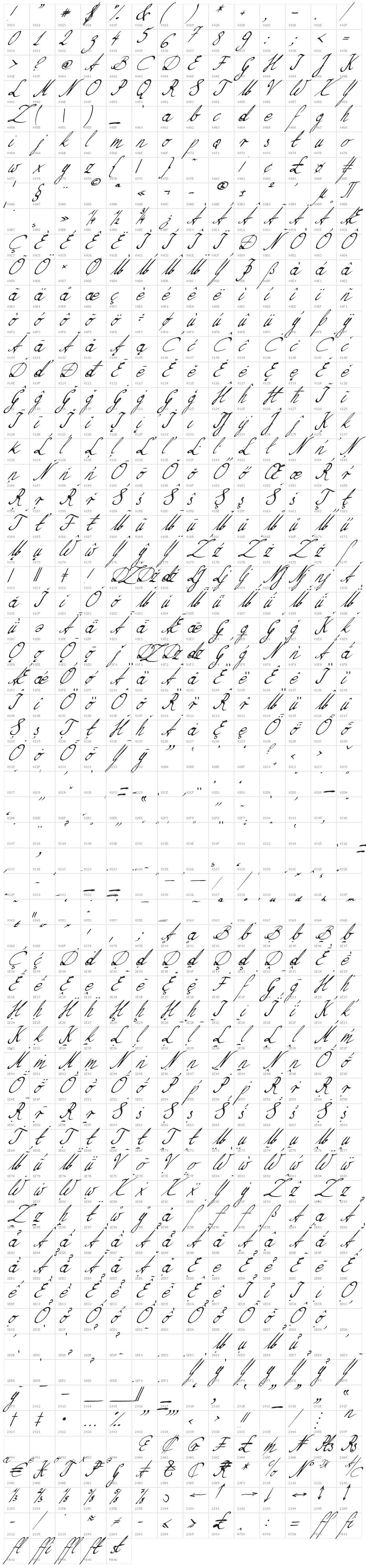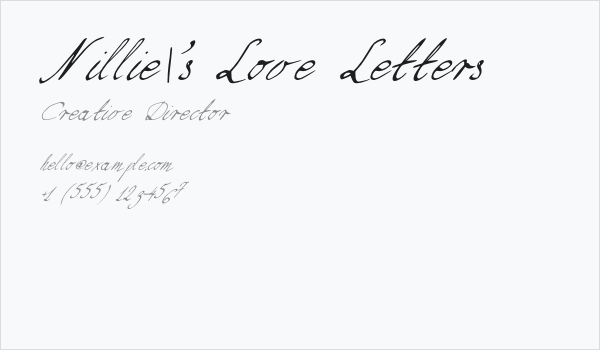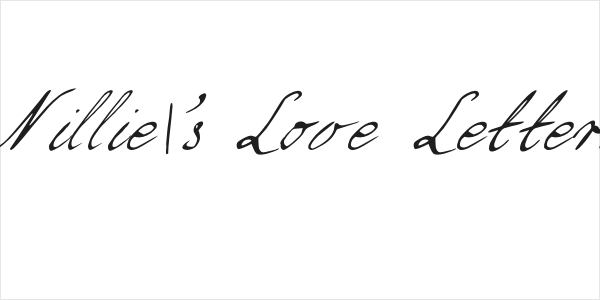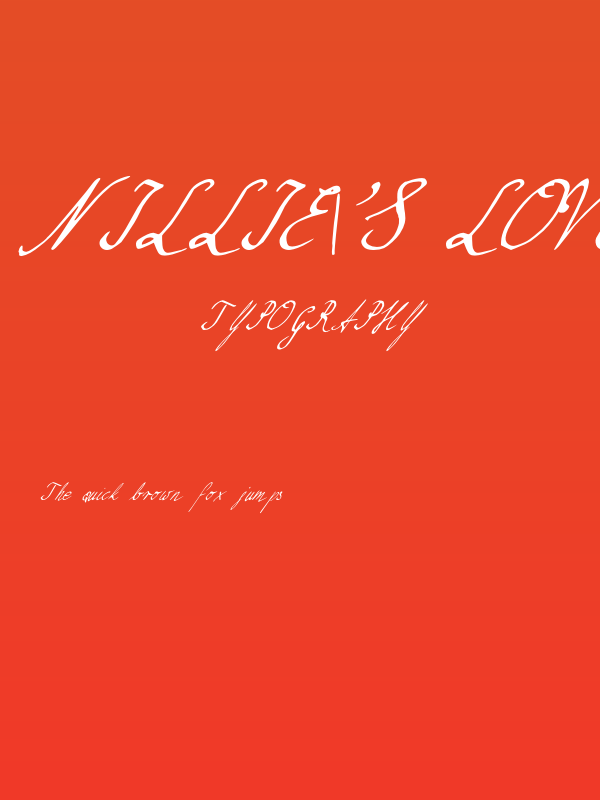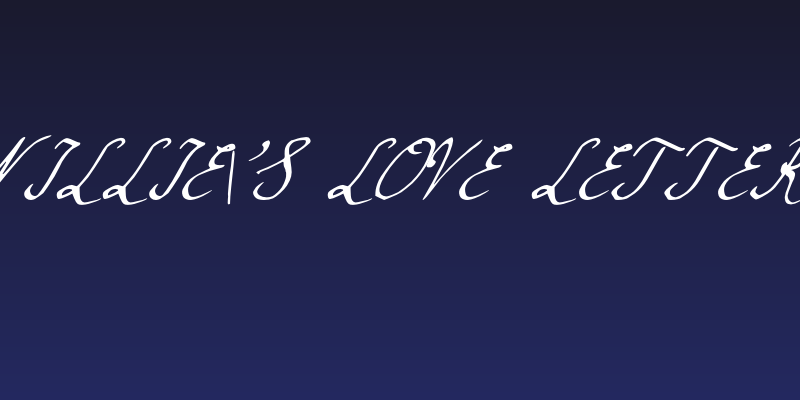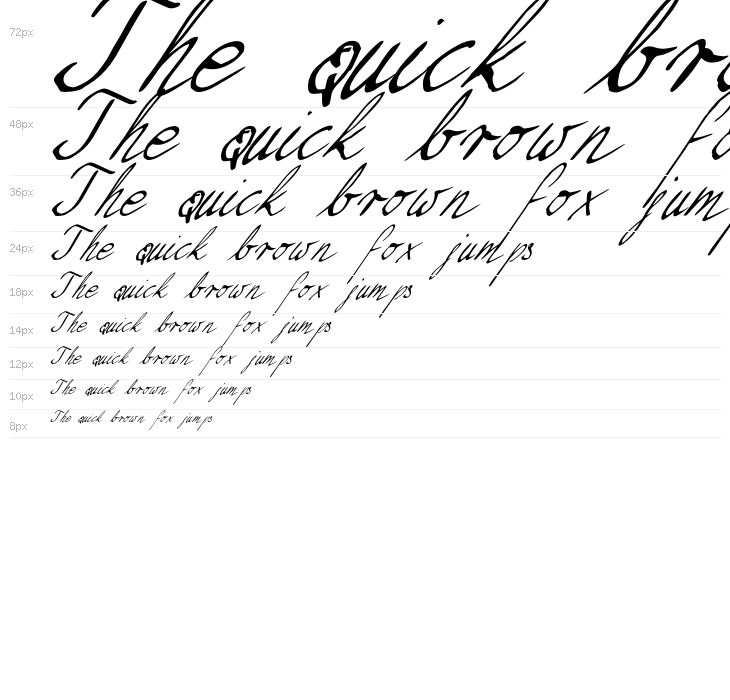
Nillie's Love Letters Font
Nillie's Love Letters Description
This elegant script font features fluid, cursive strokes that mimic the graceful flow of handwritten letters. The uppercase letters are characterized by their sweeping curves and flourishes, giving them a sophisticated and romantic appearance. The lowercase letters maintain a consistent style, with delicate loops and connections that enhance the font's overall cohesiveness. The font's design is reminiscent of traditional calligraphy, with a modern twist that makes it suitable for contemporary applications. The spacing between characters is balanced, allowing for easy readability while maintaining the font's decorative appeal. This font is perfect for projects that require a touch of elegance and charm.
| Overall Style | Elegant, Romantic |
| Use Case | Invitations, Branding, Quotes |
| Proposed Projects | Ideal for wedding invitations, greeting cards, elegant branding, and romantic quotes. |